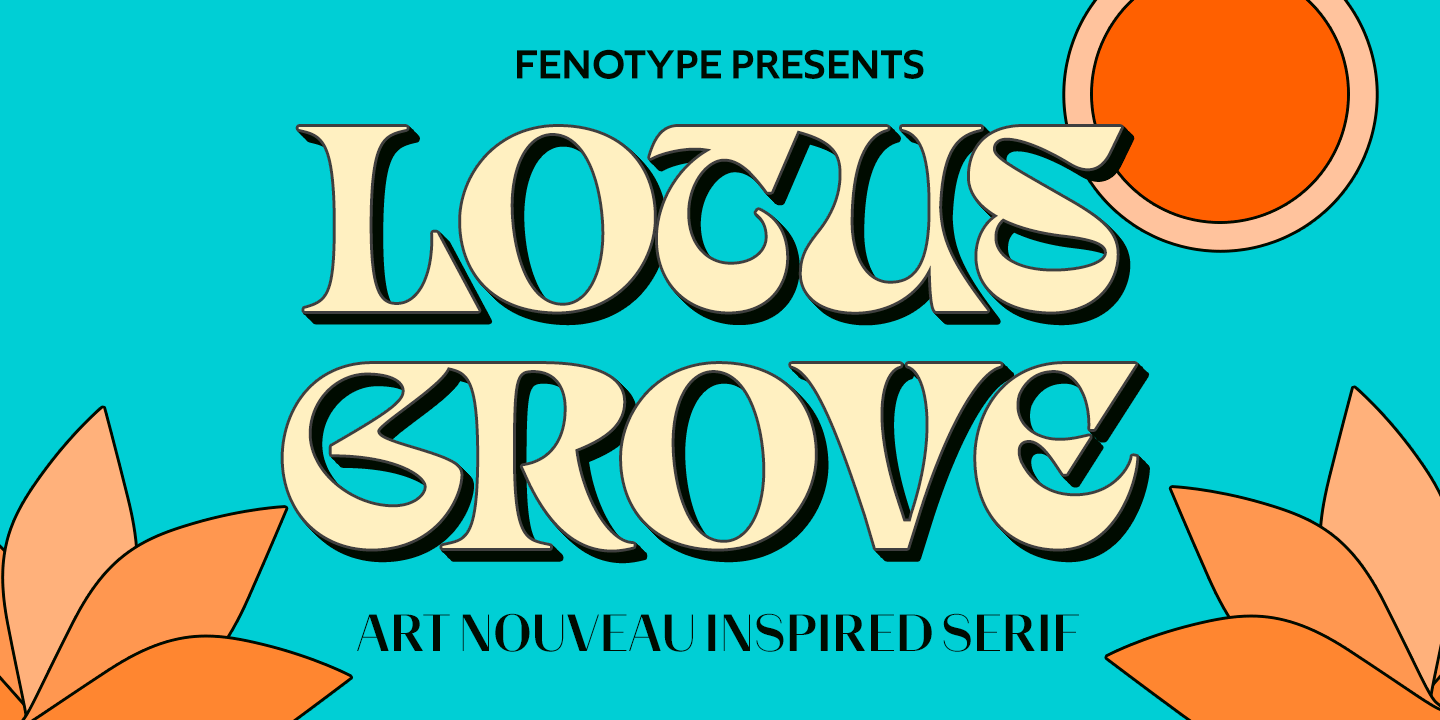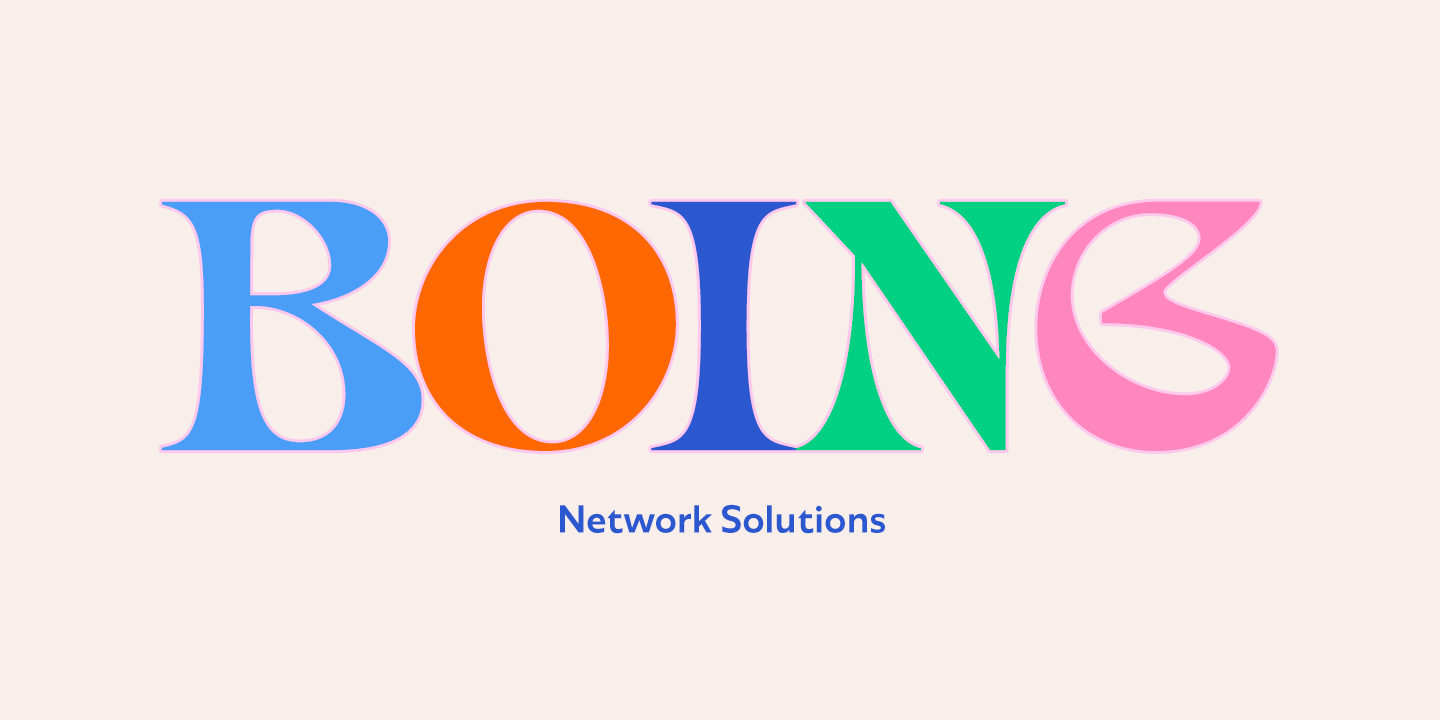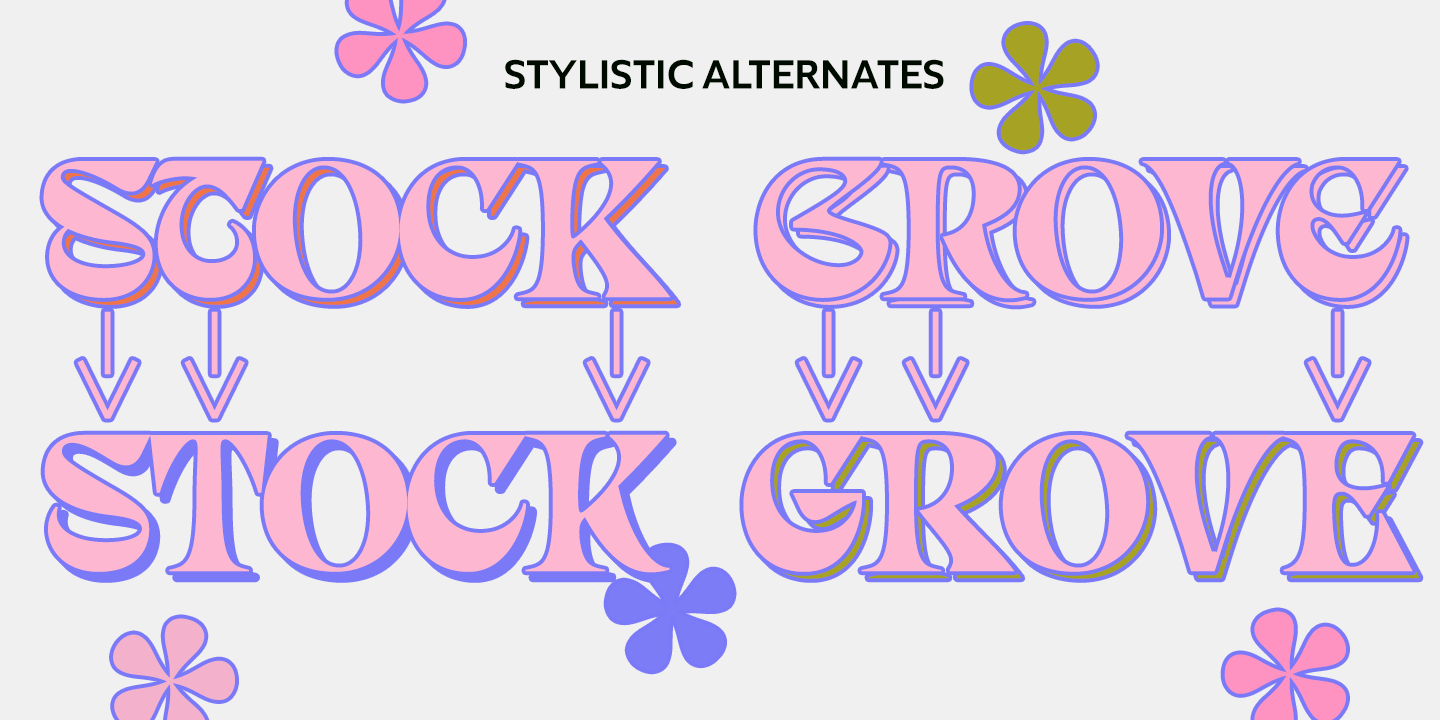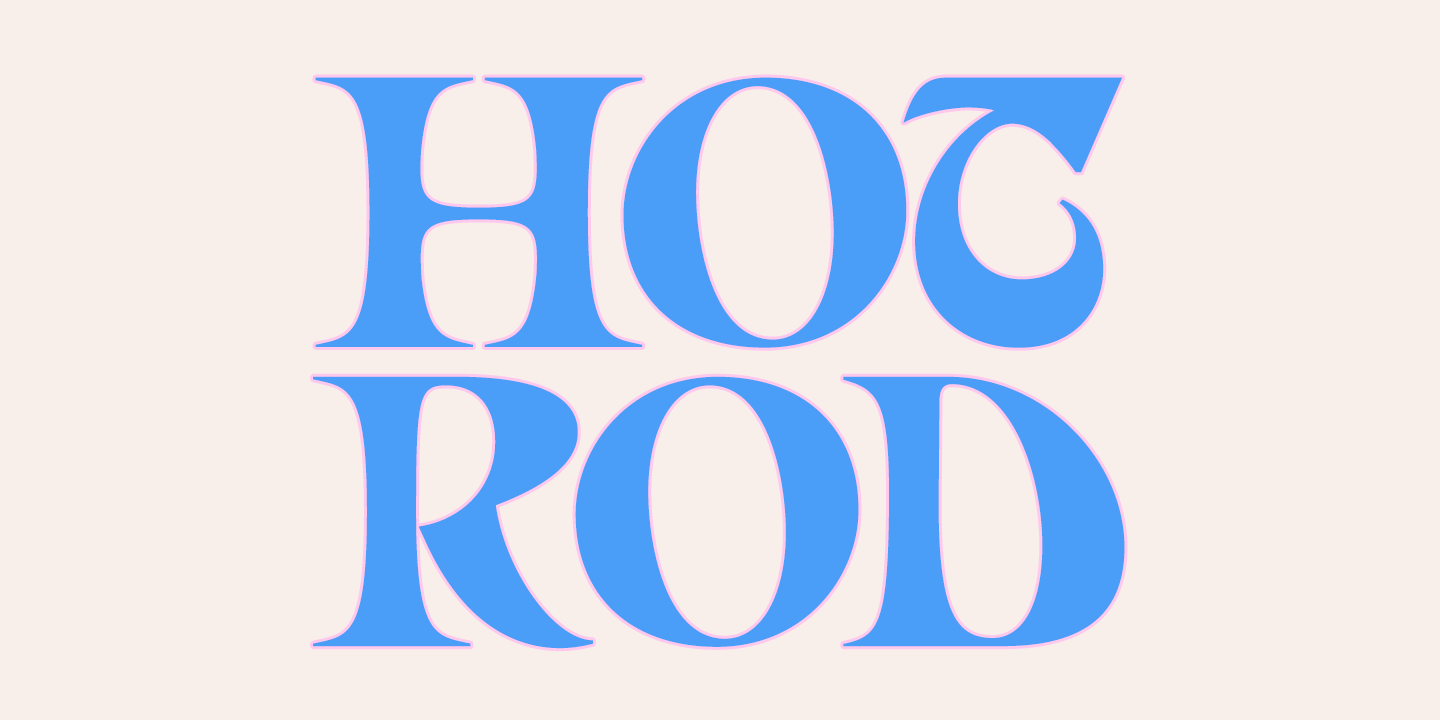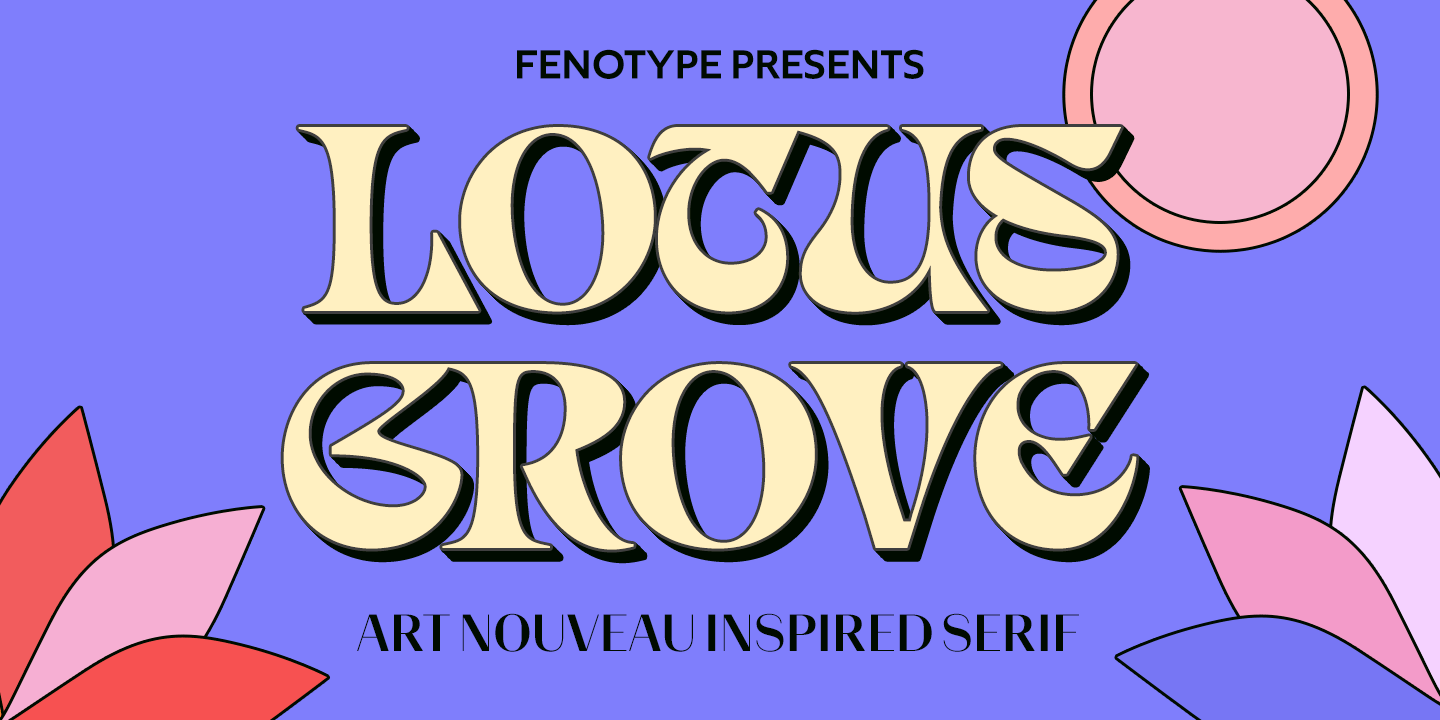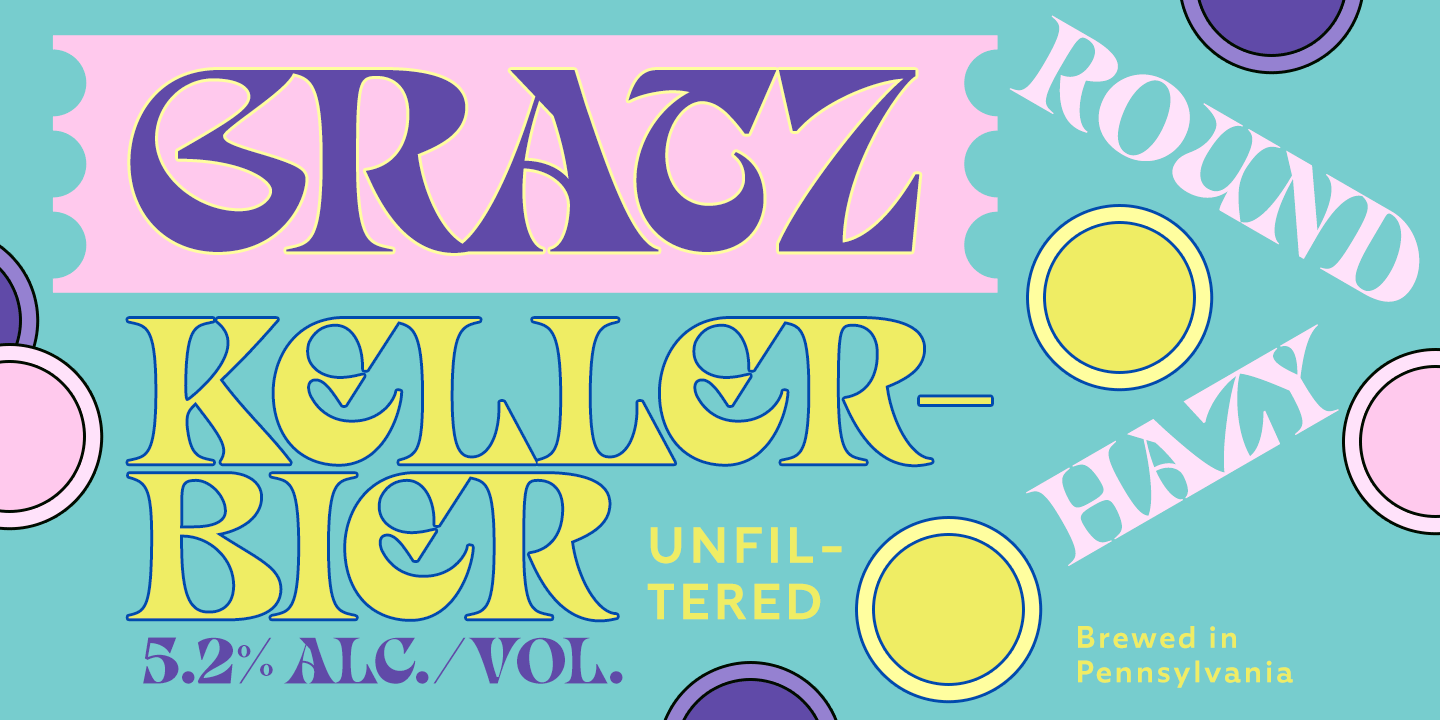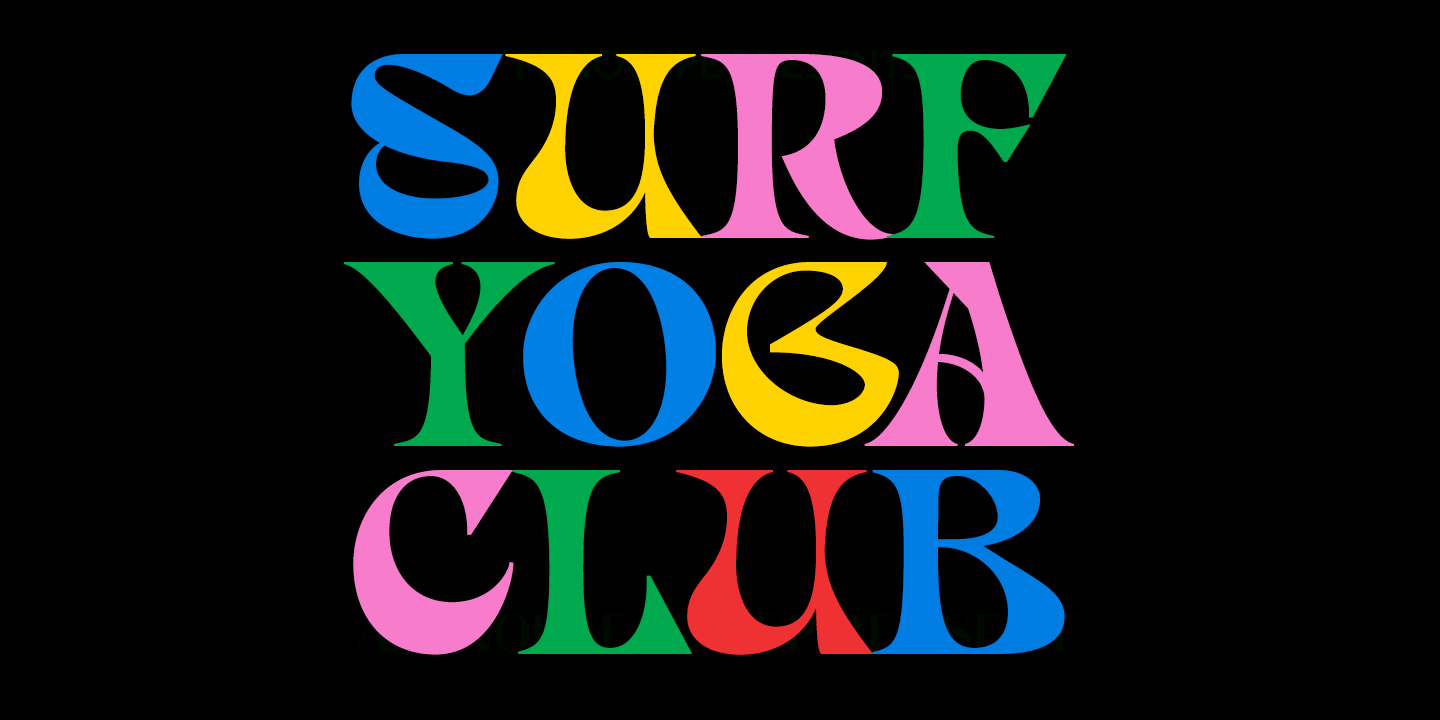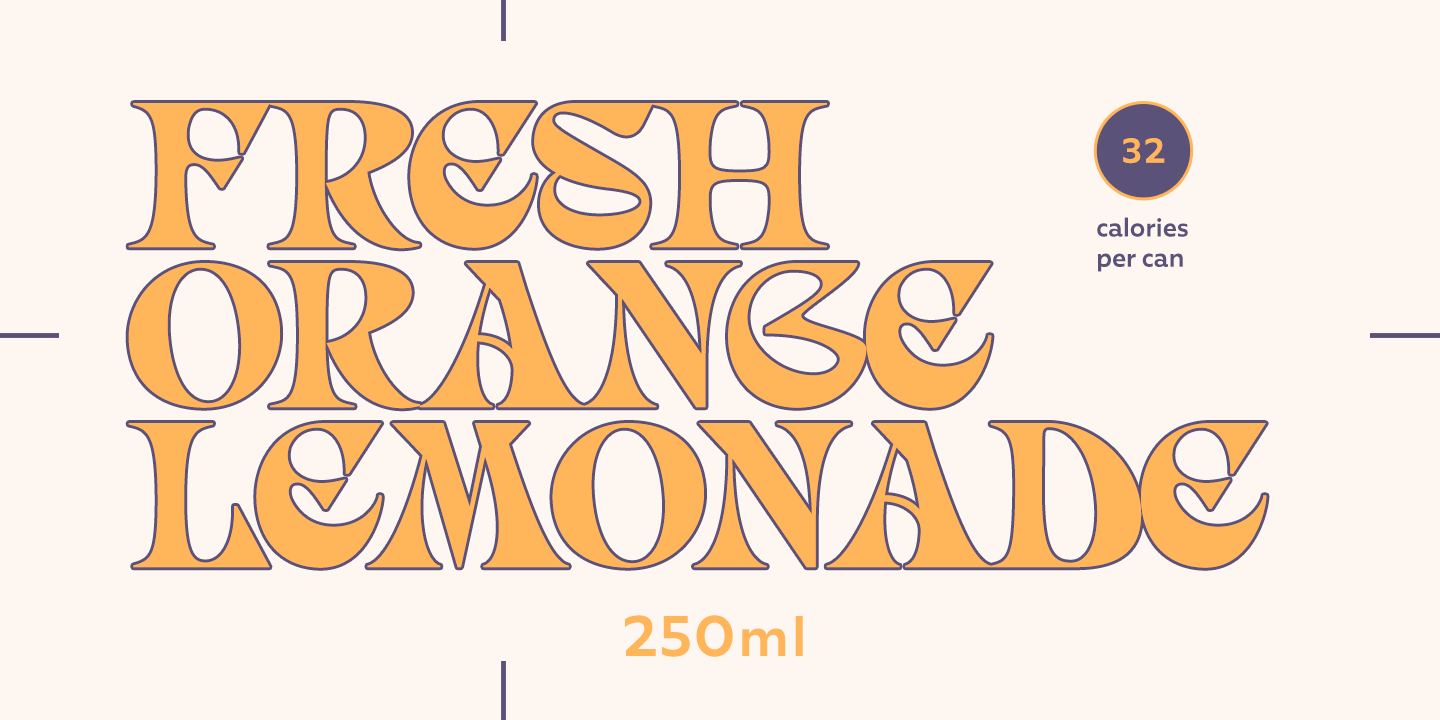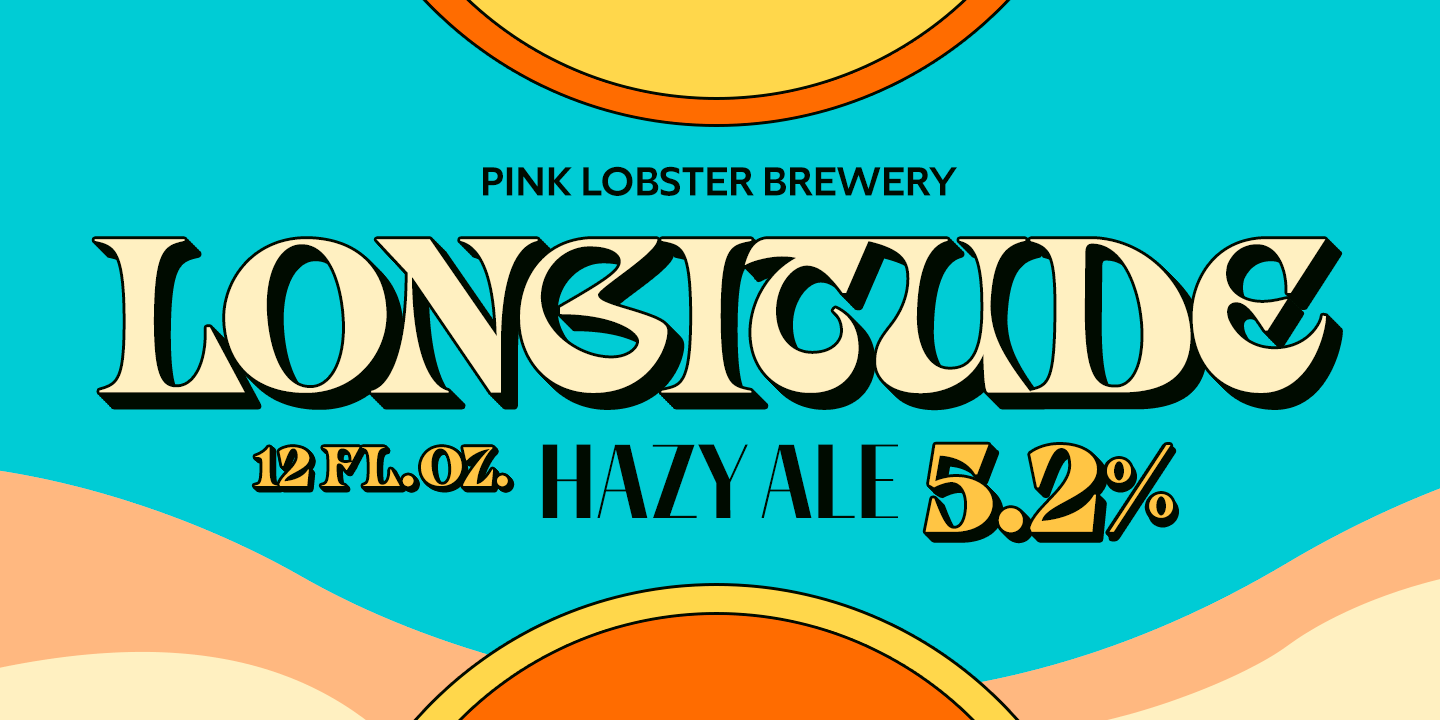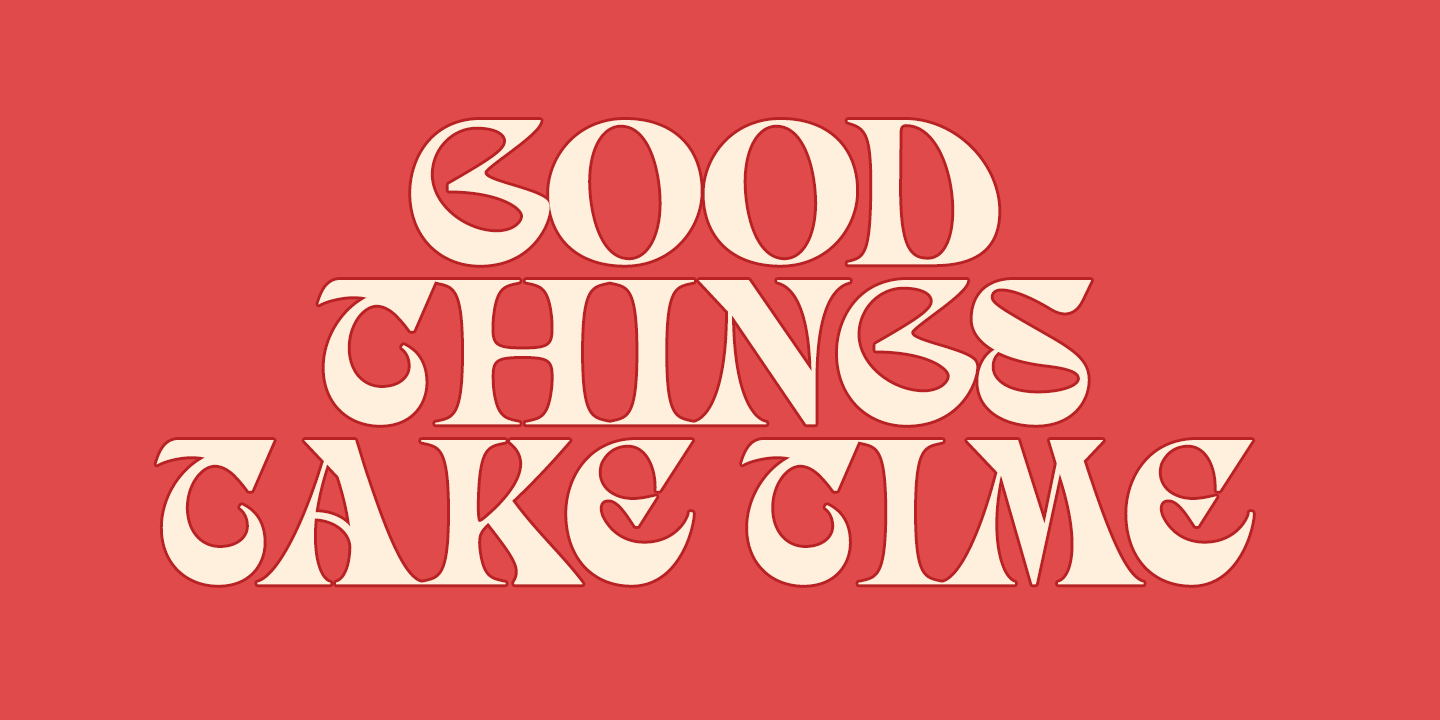
Lotus Grove
Lotus Grove is a high-contrast serif typeface with deep roots in Art Nouveau aesthetics. In contrast to its archetypal models, Lotus Grove boasts a clean-cut and smooth design, perfectly suited for modern requirements. It is a fancy typeface that suits any kind of display use.
Lotus Grove is equipped with Stylistic Alternates for letters G, E, K, R, S, T and ampersand.